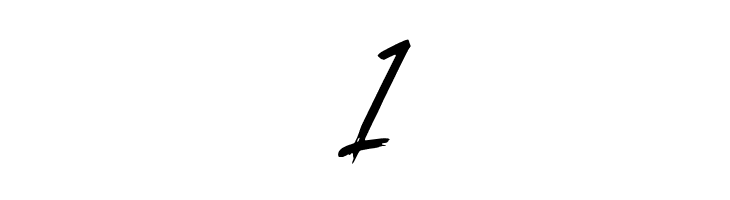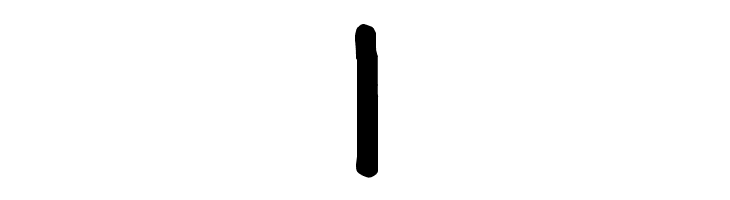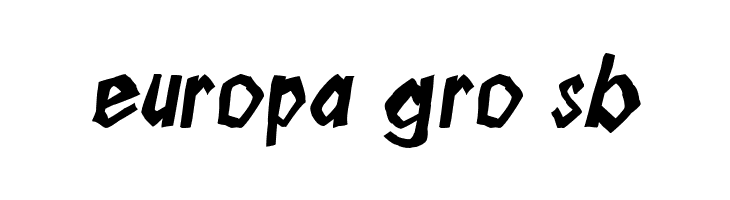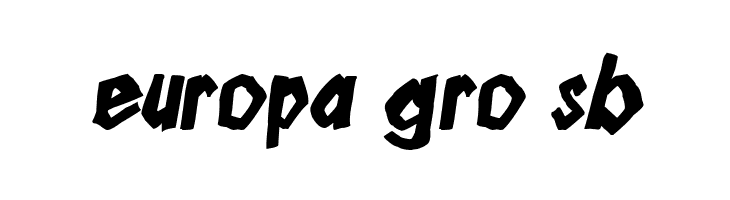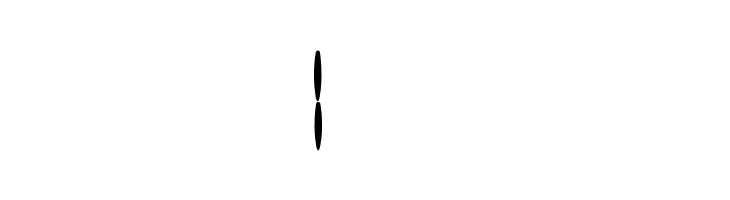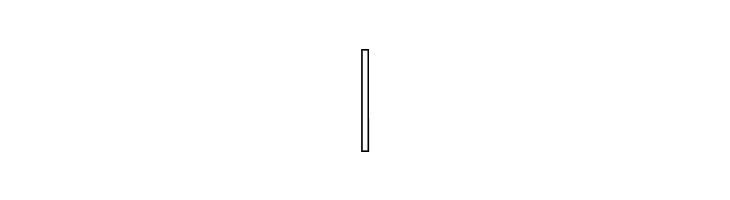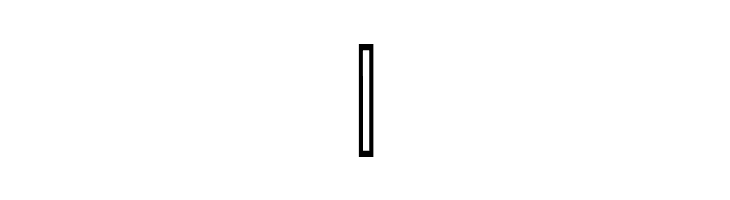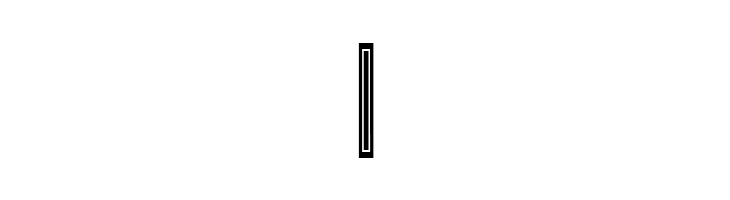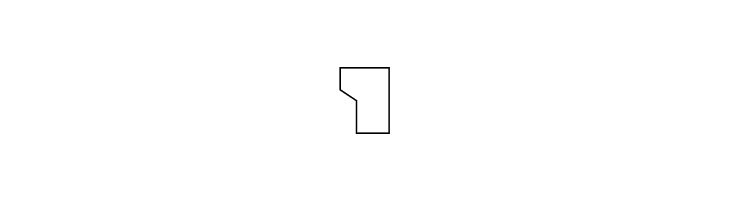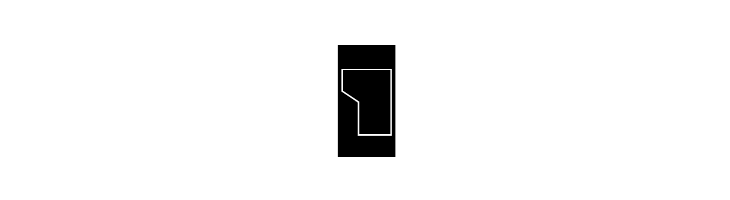
An ornate, Elizabethan-style decorative font with intricate flourishes.
A flowing, cursive script font with elegant, sweeping curves.
A decorative font with an embroidered, cross-stitched style.
A bold, brush-style font with a hand-painted, expressive look.
A modern, geometric font with clean lines and rounded edges.
A futuristic, italicized font with bold, geometric characters.
A sleek, modern italic font with geometric lines and a futuristic touch.
A modern, hollow, geometric font with clean lines and rounded edges.
A modern, hollow, inverse font with geometric outlines.
A modern, geometric font with a unique inverse style and consistent character height.
A bold, geometric font with a modern and uniform design.
A bold, italicized font with a modern, dynamic, and slightly condensed style.
A bold, extended, and modern geometric font with strong visual impact.
A bold, extended, and geometric font with a modern style.
A bold, italicized, and extended font with a modern and dynamic style.
A bold, extended italic font with a modern and dynamic style.
A modern, extended outline font with an italic slant, perfect for dynamic designs.
A bold, italic font with elongated, slanted letterforms and consistent stroke thickness.
A bold, outlined, italic font with a modern and dynamic style.
A pixelated, retro-style font inspired by early digital displays.
A bold, hand-brushed script font with dynamic strokes and a spontaneous feel.
A bold, futuristic font with angular, geometric shapes and a modern, tech-inspired style.
A bold, futuristic font with angular, geometric shapes and a condensed width.
A futuristic, angular, and condensed italic font with a bold and dynamic style.
A bold, futuristic italic font with sharp, angular edges.
A bold, futuristic font with sharp angles and an oblique slant.
A bold, geometric font with sharp angles and a modern, edgy style.
A bold, geometric font with sharp angles and a futuristic feel.
A bold, italic font with sharp angles and a dynamic, modern style.
A bold, angular italic font with a futuristic and aggressive style.
A bold, geometric font with hollow interiors and a futuristic style.